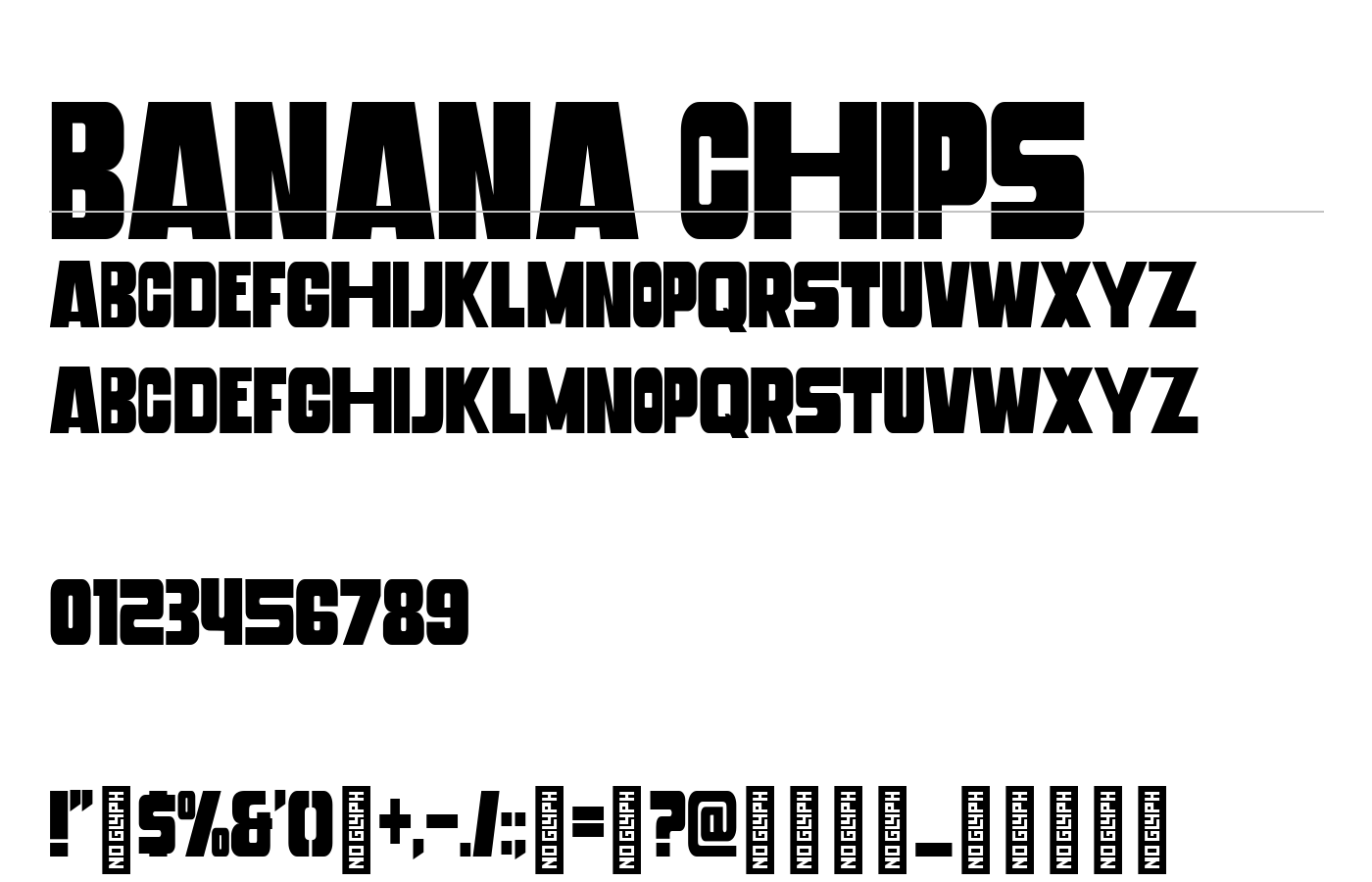
Banana Chips is a bold, condensed sans serif font with a strong, impactful presence. Its heavy weight and tight letter spacing create a modern, powerful look that works well for headlines, posters, and branding where a striking, confident impression is needed. This font’s geometric forms and solid strokes convey a sense of strength and dynamism, making it ideal for attention-grabbing designs in fashion, entertainment, and urban-themed projects.
Banana Chips Font
About Banana Chips Font